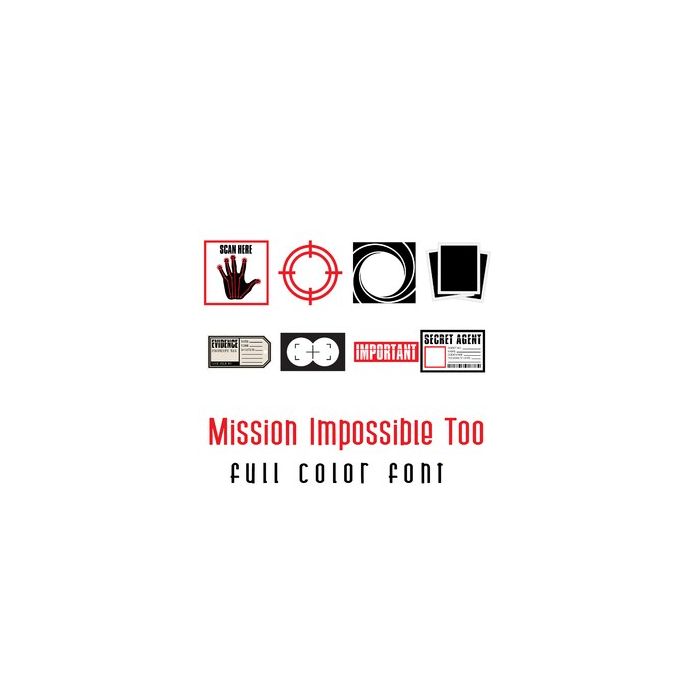
This adorable full color doodlebat font features spies, secret mission material and disguises. Perfect for cards, crafts, gifts, decor, scrap book pages, planner stickers and more!